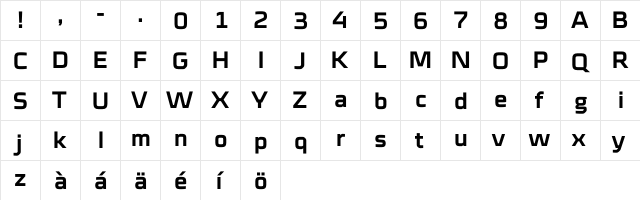
Cube Bold Font Preview
Cube Bold
Cube Bold Font Details
| Foundry | Jan Maack |
| Designer | Jan Maack |
Design Context for Cube Typeface
Cube offers clean, dependable letterforms without strong stylistic allegiance, making it a practical choice for designers who need flexibility. The heavy weight commands attention and anchors typographic hierarchies.